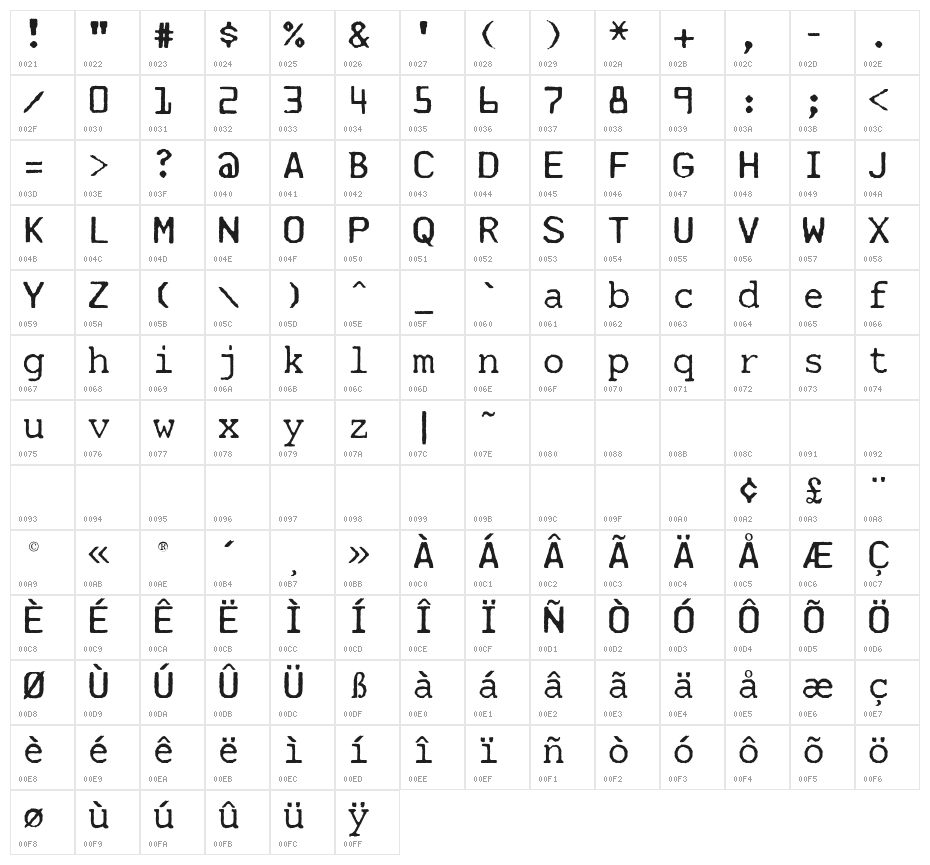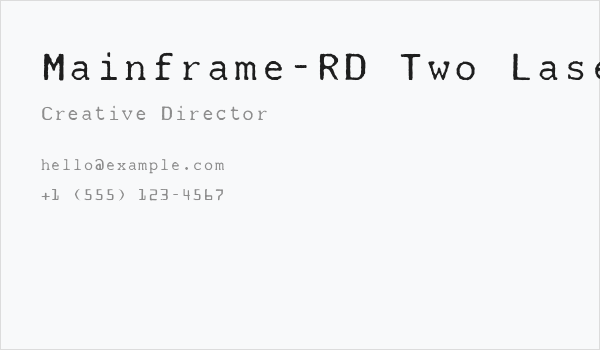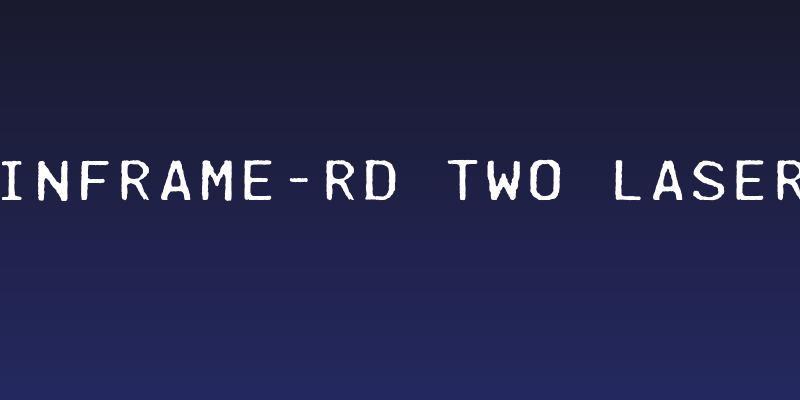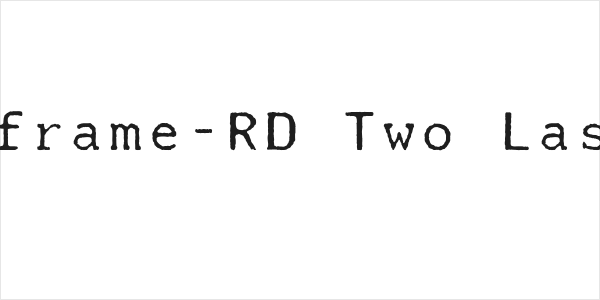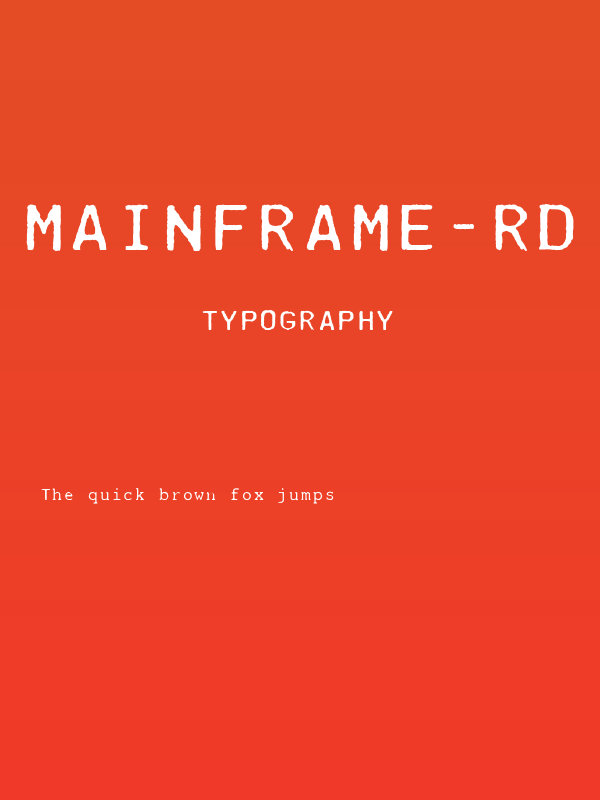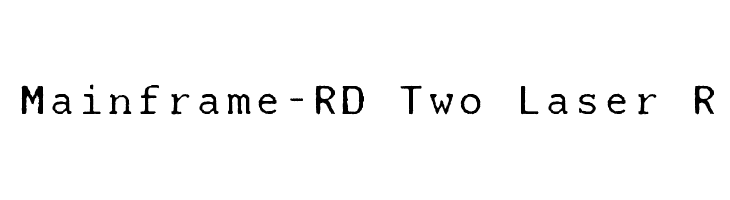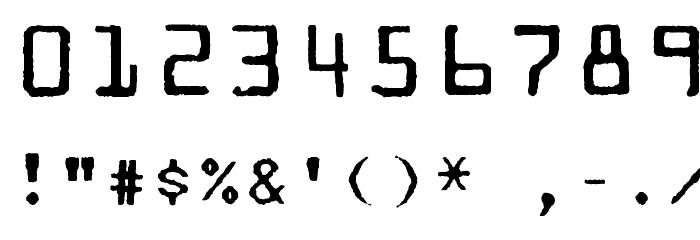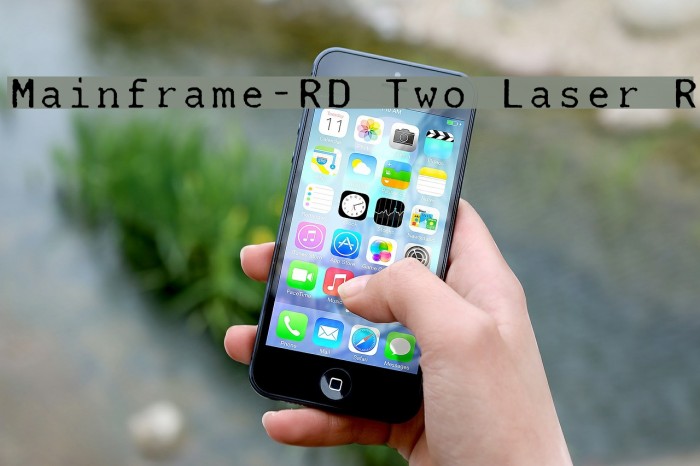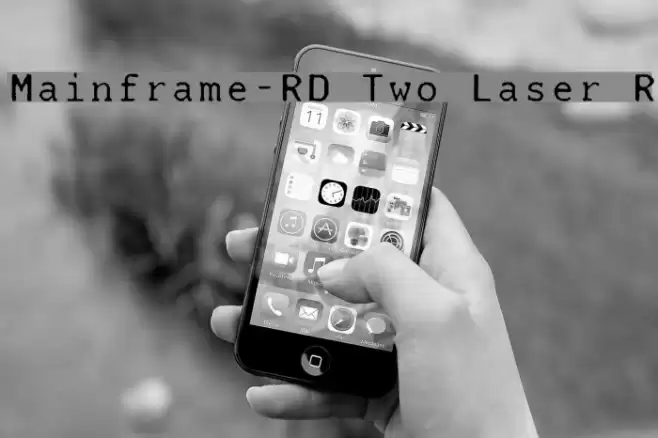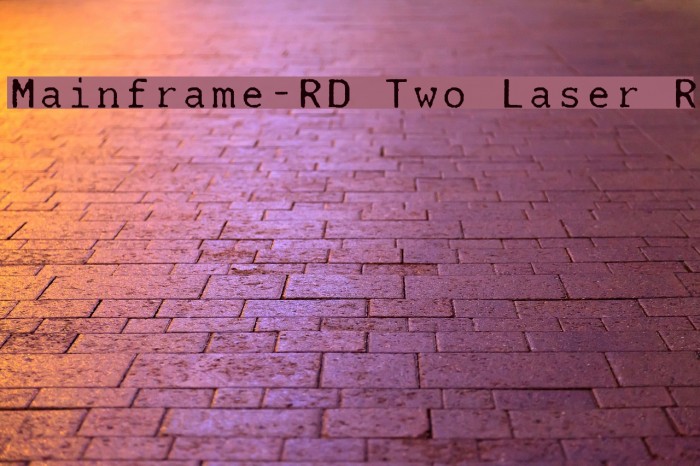
Mainframe-RD Two Laser R Font
Mainframe-RD Two Laser R Description
This font exhibits a distinctive, vintage typewriter style with a slightly distressed appearance, giving it a retro and mechanical feel. The characters are monospaced, ensuring uniformity in width, which is characteristic of typewriter fonts. The uppercase letters are bold and prominent, while the lowercase letters maintain a consistent height, contributing to a balanced look. The numerals are clear and legible, with a slightly heavier weight, enhancing their visibility. Special characters are well-defined, maintaining the overall aesthetic. The font's texture suggests a worn, industrial vibe, ideal for projects seeking a nostalgic or mechanical theme.
| Overall Style | Vintage |
| Use Case | Logos, Headlines, Posters |
| Proposed Projects | Ideal for retro-themed designs, typewriter art, industrial branding, or vintage posters. |